Handpicked Font Bundle
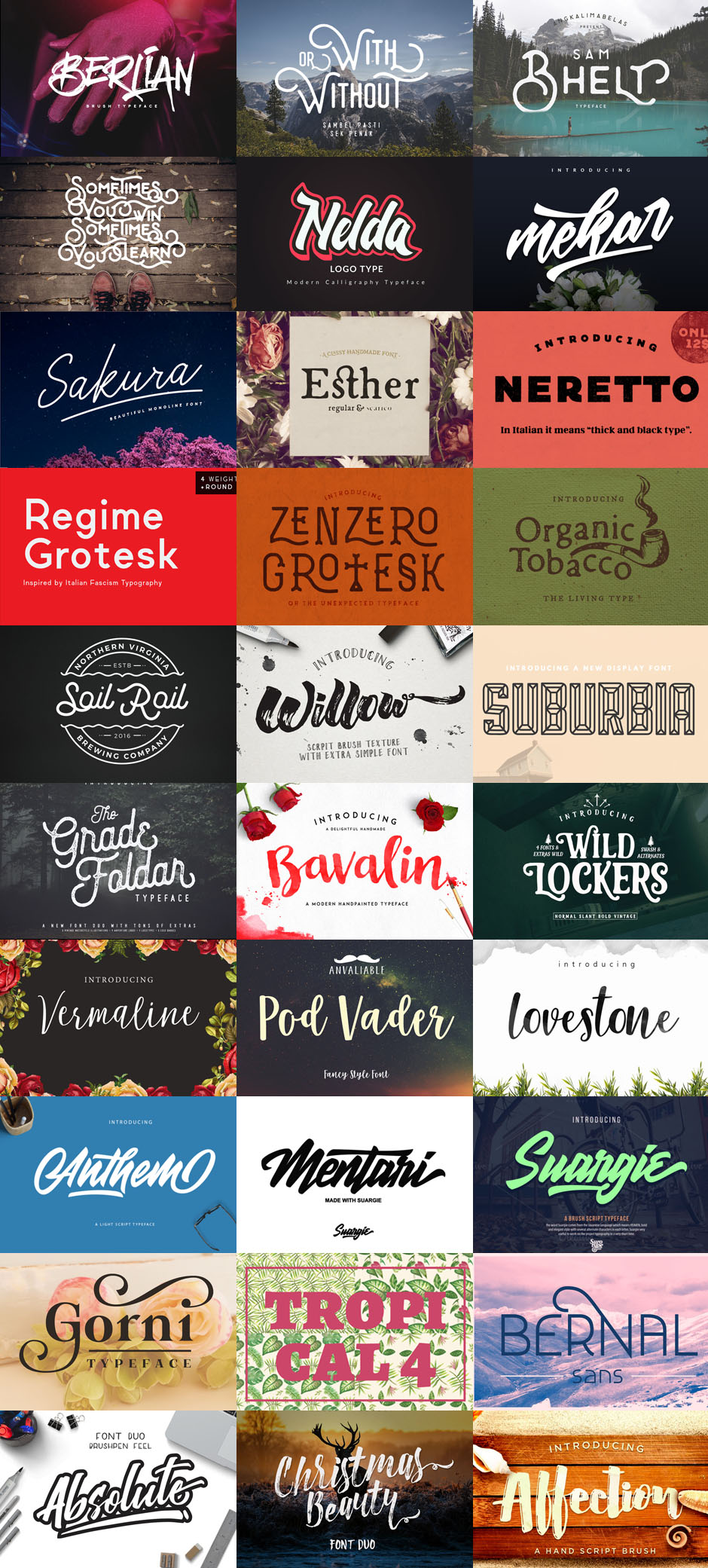
Berlian Brush Font by Angkalimabelas
With Berlian | Brush Font you can applied to logos, product, display, clothing, quotes and many more. You can applied to all typography with mix and match pairs of letters to fit your own designs. All font files are provided in both TTF & OTF font formats. I recommend installing the TTF, and the OTF only if necessary.
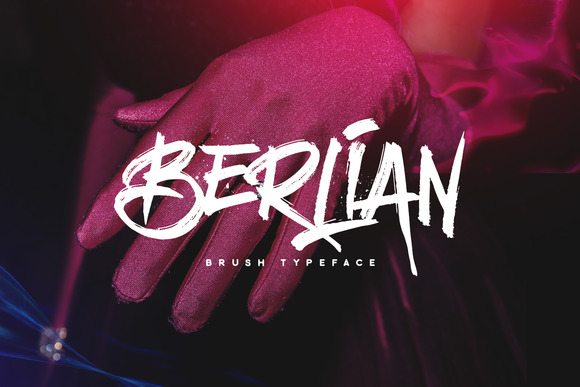
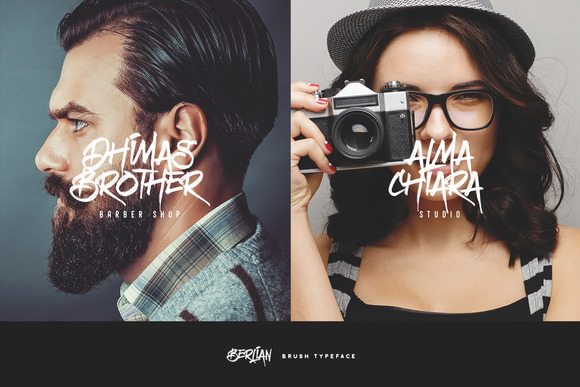
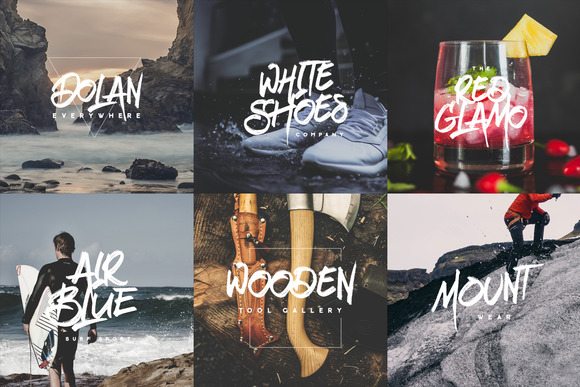
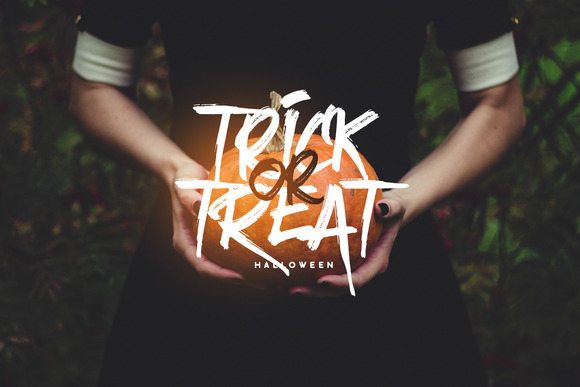
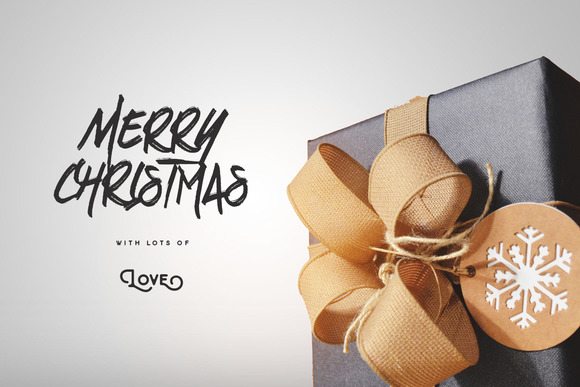
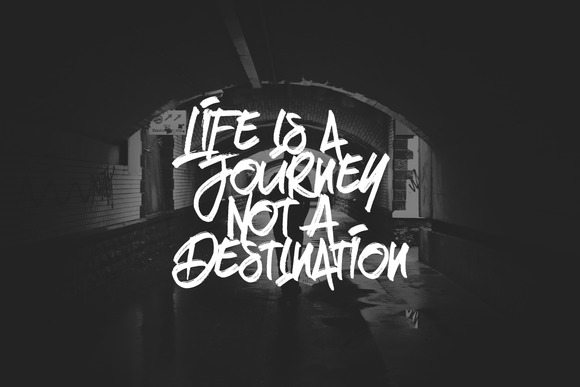
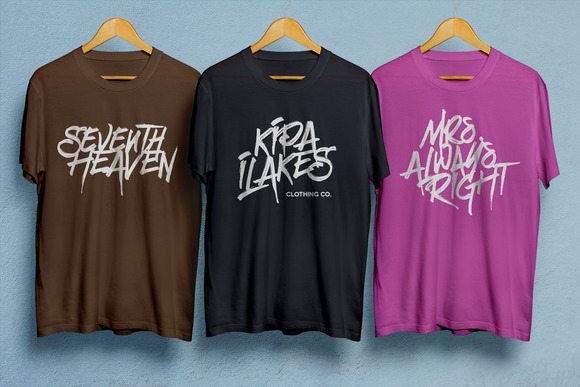
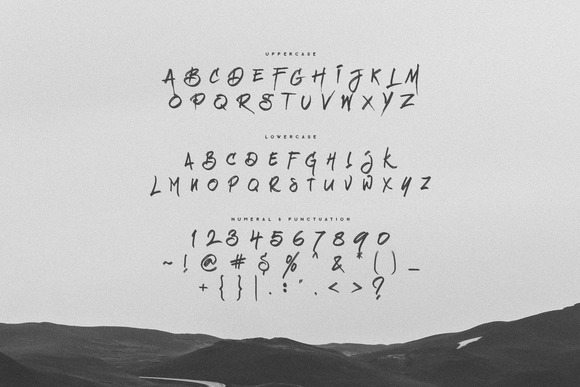
Koebis Font by Angkalimabelas
Handrawn typeface with modern stylist feel. You can use this font for headline, wedding invitation, book cover title, logos, photography watermark, etc.
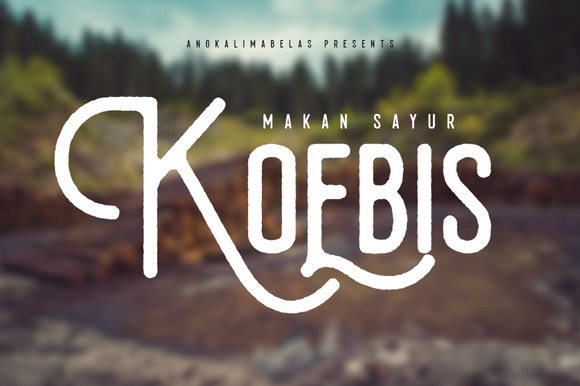
Bhelt Typeface by Angkalimabelas
Bhelt typeface is handmade font with combining vintage style.
You can applied to logos, wedding invitation, display, clothing, quotes and many more.
Contextual Alternate
Stylistic Alternate
Jamoer Typeface by Angkalimabelas
Jamoer Typeface is rounded font with vintage look styles. You can applied to logos, wedding invitation, display, clothing, quotes and many more.
Clean & Rough font
Nelda Typeface by ShowUp! Typefoundry
Nelda is bold, playful, modern, and multi-purpose typeface that combines brush lettering with natural handwriting. It is suitable for logo, packaging, headline, poster, t-shirt, etc.
With 311 glyphs and 131 alternatives characters, you can mix and match Nelda to fit your design. The alternative characters divided into several OpenType features such as Ligature, Contextual alternates, stylistic sets, and swash. It can be accessed by using OpenType savvy program such as Adobe Illustrator and Adobe InDesign.
Mekar Script by ShowUp! Typefoundry
Mekar Script, is a calligraphy typeface, modern and clasik, perfect for your next design, such as logos, printed quotes, invitations, cards, product packaging, headers and anything else about your imagination.
Mekar Script allows you to create custom dynamic text. you can access by turning on; Stylistic Set, Initial and terminal as well as ligatures in Photoshop, Adobe Illustrator, Adobe InDesign or through a panel of glyphs such as Adobe Illustrator, Photoshop CC, Let’s switch from the reguler character into character alternative to get the text with the layout of your dreams. Mekar Script also includes glyphs, punctuation, numbers, and multilingual.
With 291 glyphs, you can mix and match mekar to fit your design. The alternative characters divided into several OpenType features such as Ligature, Contextual alternates, stylistic sets, and swash. It can be accessed by using OpenType savvy program such as Adobe Illustrator and Adobe InDesign.
Sakura Font Set by ShowUp! Typefoundry
Sakura is A clean & classy signature-style font set, perfect for creating authentic hand-lettered text quickly & easily. With exaggerated strokes and an extra bouncy baseline, Sakura has an unmistakable charm; perfect for logos, headers, company or personal branding, product packaging, cards & handwritten quotes.
Esther Handmade Font by Hederae Creative Shop
Esther is a classy handmade typeface that has been designed by Valerio Dell’Edera, who also has developed a Uppercase-Liga product line (Zenzero Grotesk And Zenzero Grotesk Sans). This font is the ultimate version of this serie, with serifs. It is not constructed out of modules: each character is drawn by hand and optimized for the best legibility. Esther is ideal for cookbooks, menus, liquor bottle labels, food packaging, wedding invitations, greeting cards, tea boxes, food blogs, small shops, cupcake bakeries and so on.
Esther Regular (Esther-Regular.otf) is a set of upper & lowercase serif characters which includes a large range of punctuation glyphs, numerals, and multilingual support. A full set of stylistic alternates for lowercase characters are also available.